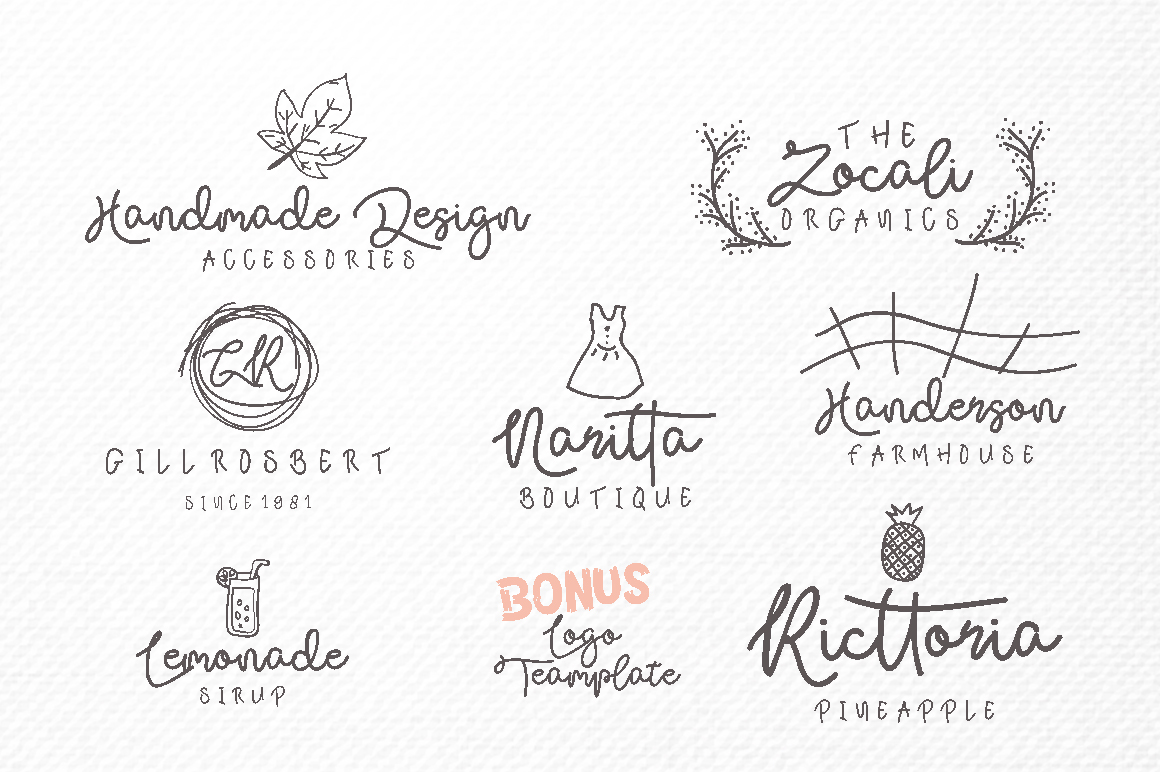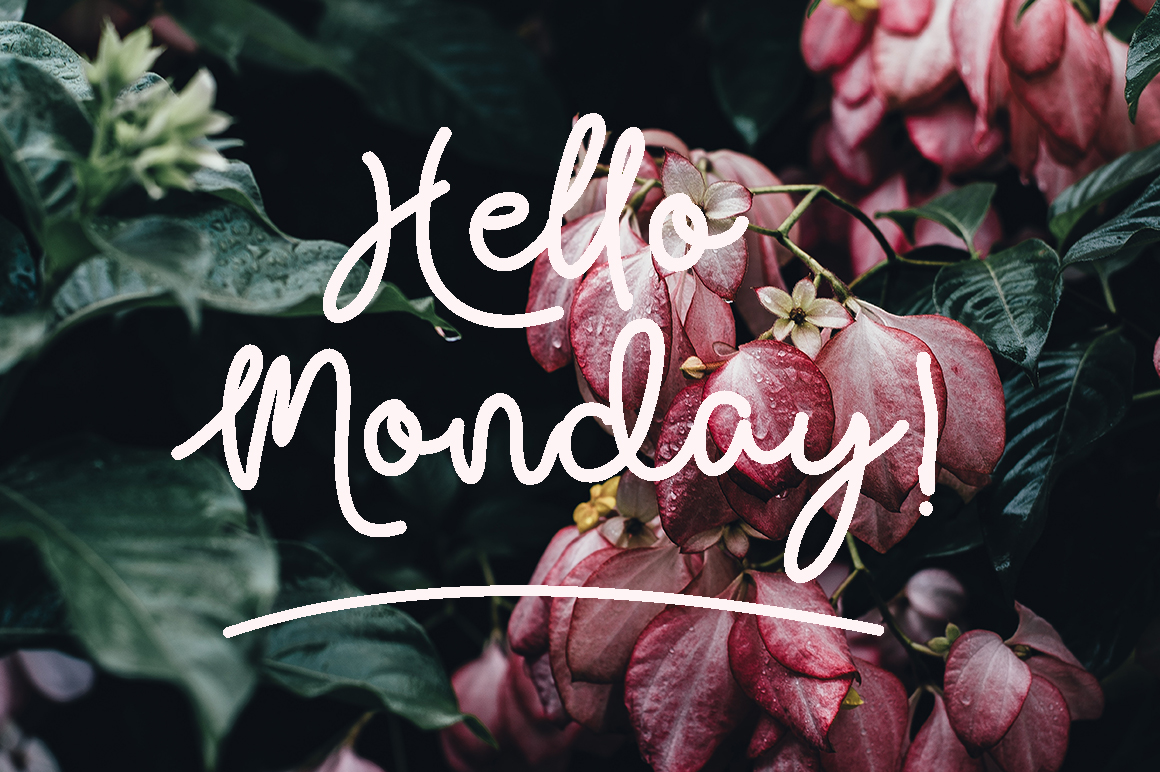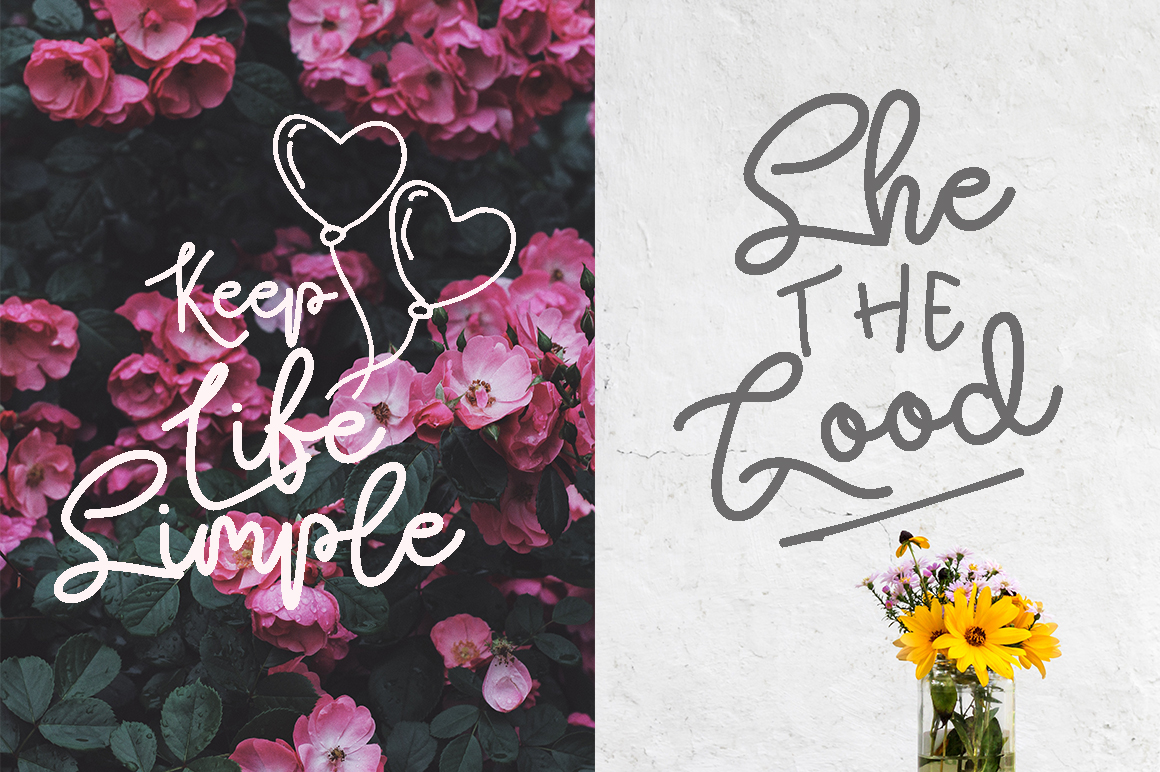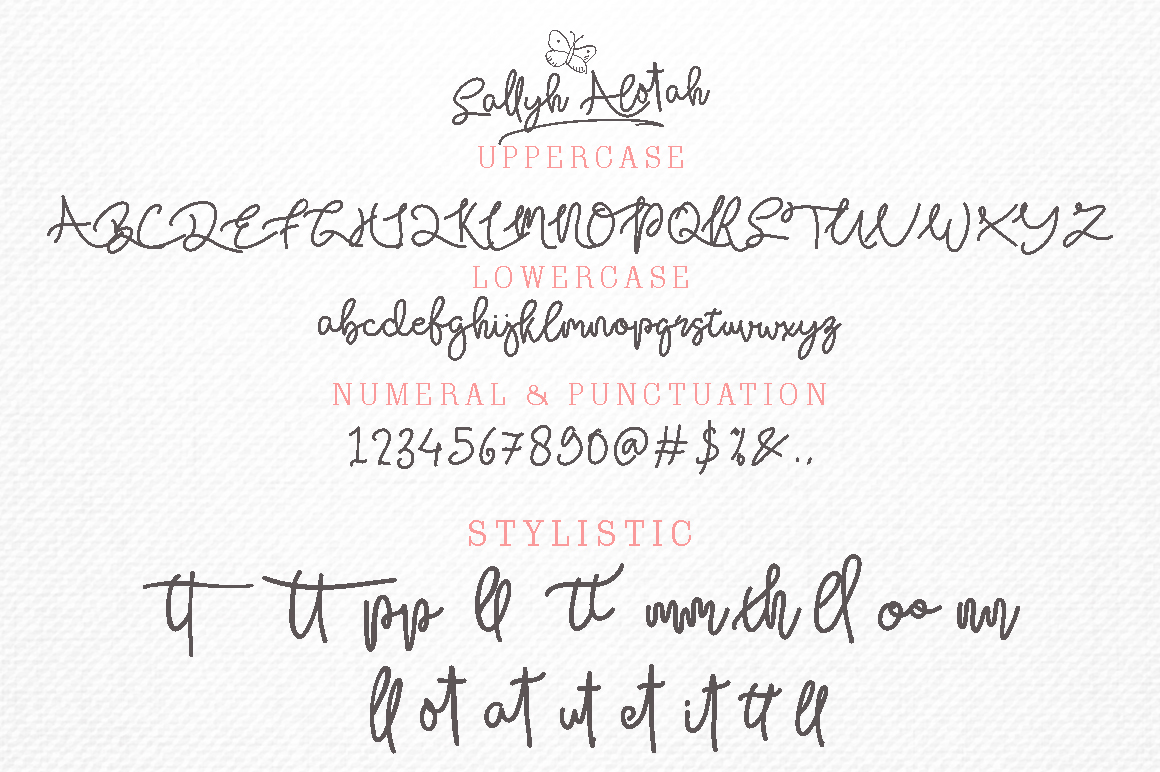
Sallyh Alotah Font
About Sallyh Alotah Font
Sallyh Alotah is a modern siganture type of font with a modern twist. It’s perfect for many different projects and comes with a bonus font with cute drawings.